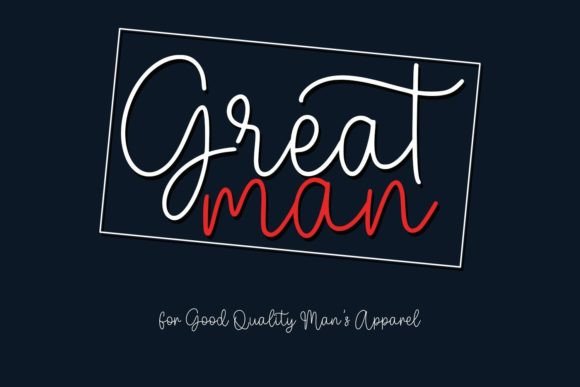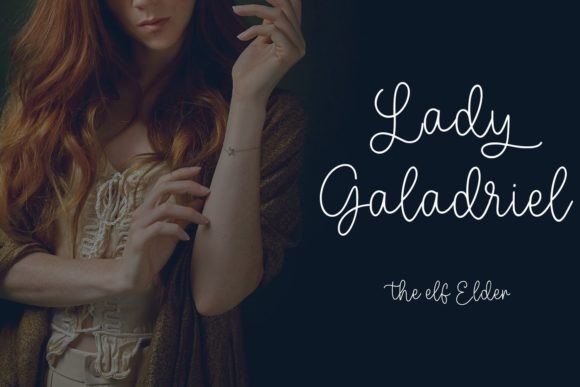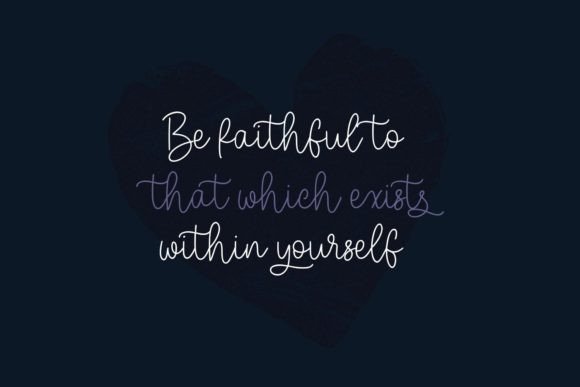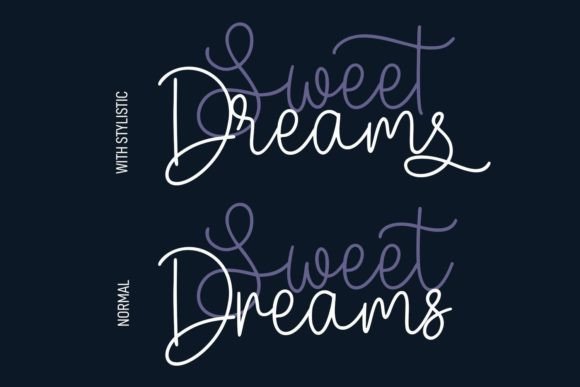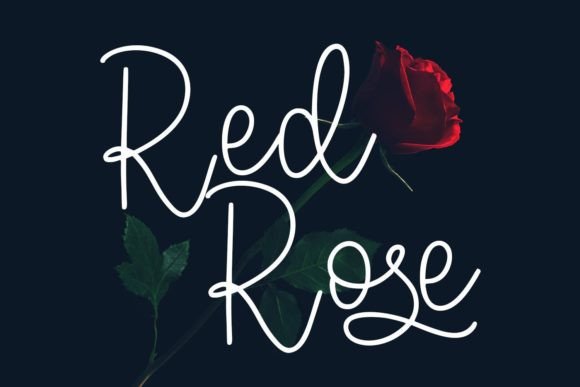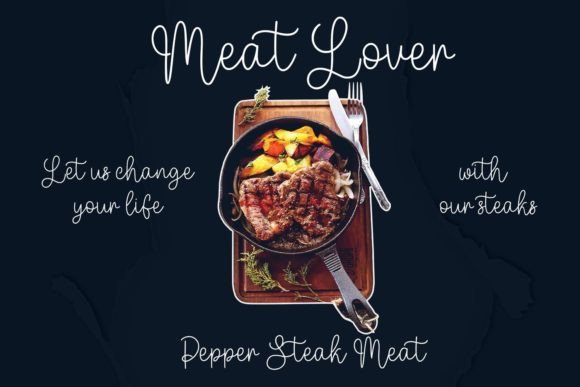
The Perfect Font for Your Creative Masterpiece
Have you ever stared at a blank page, struggling to find the perfect font to bring your design to life? The frustration is real, but what if I told you that there’s a font that can change everything? For designers, the quest for the perfect font is an ongoing one, and I’m excited to introduce you to a game-changer: Castilock Font.
Castilock Font is a versatile and playful script font designed for logos, social media, movie titles, and more. Its unique blend of ligature and alternates makes it perfect for adding a touch of personality to your designs. Whether you’re working on a short text or a long-form project, Castilock Font is an excellent choice for secondary text that complements sans or serif fonts. With Castilock Font, the possibilities are endless, and your designs will shine with a personal touch.
Castilock Font Key Features
- Font Size: 1,000+ glyphs, covering Latin, Cyrillic, and Greek scripts
- Unique Characteristics: Distinctive, modern design with a touch of elegance and sophistication
- Font Weight: Regular, Bold, Italic, and Bold Italic weights available
Castilock Font Review
Overall, I think the Castilock font has some nice qualities, but also a few drawbacks that prevent it from standing out as a top-tier font.
- The Castilock font has a unique, elegant feel to it, making it perfect for high-end designs and luxury brands.
- The font is highly legible, even at smaller sizes, which is a must for any font intended for use in body copy or text-heavy designs.
- The Castilock font also comes with a range of weights and styles, allowing designers to create a wide range of visual effects and moods.
Limitsations ⚠️
- The Castilock font is a bit too ornate for my taste, which can make it difficult to read at a glance.
- The font’s unique feel can also make it difficult to pair with other fonts, as it can be quite bold and attention-grabbing.
- The Castilock font is not ideal for use in small or low-resolution designs, as the fine details can get lost or distorted.
The Castilock font is a solid choice for designers looking to add a touch of elegance and sophistication to their designs. While it has some limitations, it’s a versatile font that can be used in a variety of contexts, from luxury branding to editorial design.
Getting the Most Out of Castilock Font
Use the Castilock Font to create eye-catching headings and titles. Combine it with other fonts to create a unique and stylish design. Experiment with different font sizes, colors, and alignments to achieve the desired effect.
The Castilock Font is suitable for a wide range of designs, including:
- Print and digital publications